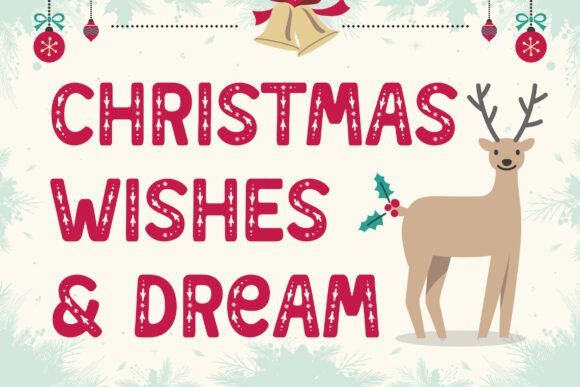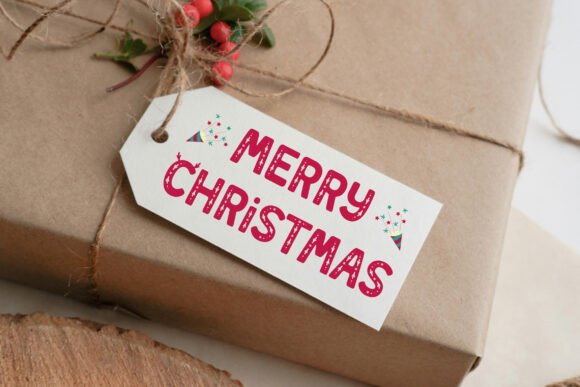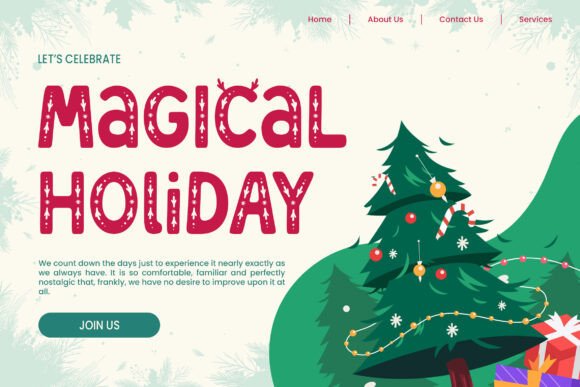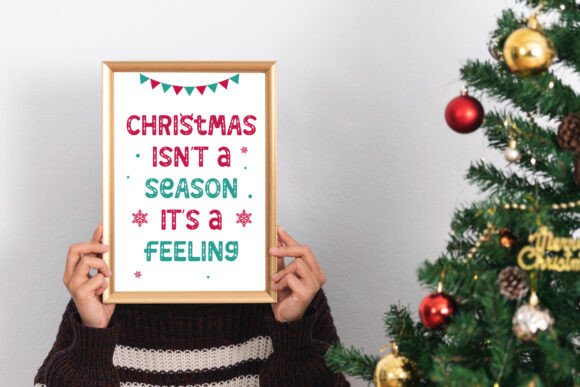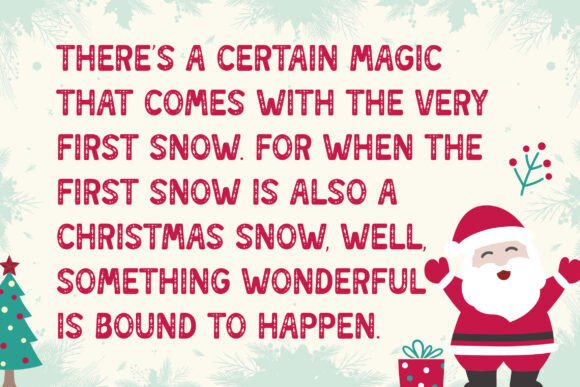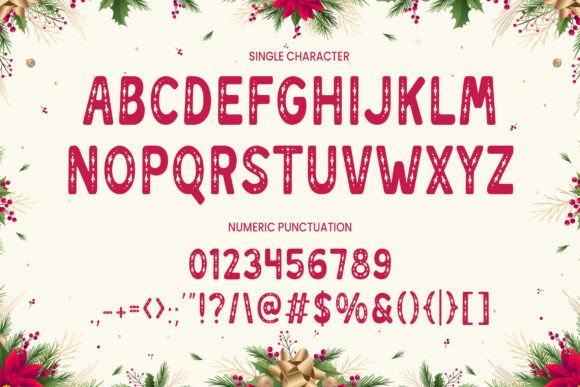
The Magic of Forest Crystal Font: A Designer’s Delight
Ah, the joy of stumbling upon the perfect font for your design project! It’s like finding the missing piece to a puzzle. I recall working on a Christmas-themed craft project last year, and I was on a mission to find a font that would capture the essence of the holiday season. That’s when I discovered Forest Crystal Font, and it instantly became my go-to choice. In this article, I’ll share my experience with Forest Crystal Font, its unique features, and how to make the most of it in your designs.
A Personal Review: What I Love and What I Think Could Be Improved
- ✨ Unique character theme that’s perfect for Christmas and holiday designs
- ✅ Highly versatile and fits various design styles
- 🎉 Supports OpenType features, glyphs, and stylistic alternates for added creativity
- 📚 Easy to read and works well for both headings and titles
While Forest Crystal Font is an excellent choice, there are a few things to keep in mind:
- 🤔 May not be the best choice for body text due to its display font nature
- ⚠️ Limited availability of special characters and symbols
The Story Behind Forest Crystal Font
Forest Crystal Font was designed with the holiday season in mind. The creator aimed to craft a font that would evoke the magic and wonder of Christmas. With its unique character theme and versatile design, Forest Crystal Font has become a popular choice among designers and crafters.
| Font Name | Forest Crystal Font |
| Author | Dryy.type |
Q: Does Forest Crystal Font support OpenType features?
A: Yes, Forest Crystal Font supports OpenType features, glyphs, and stylistic alternates, making it a versatile choice for designers.